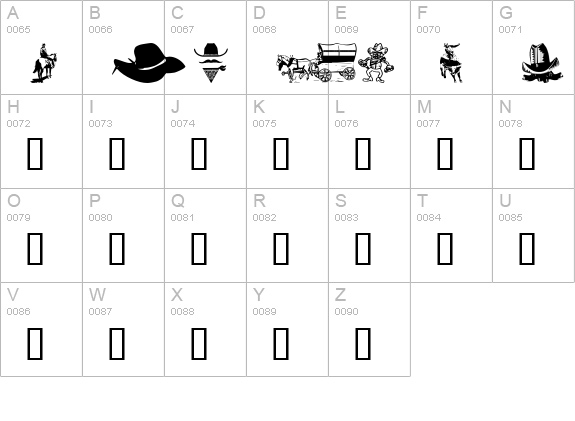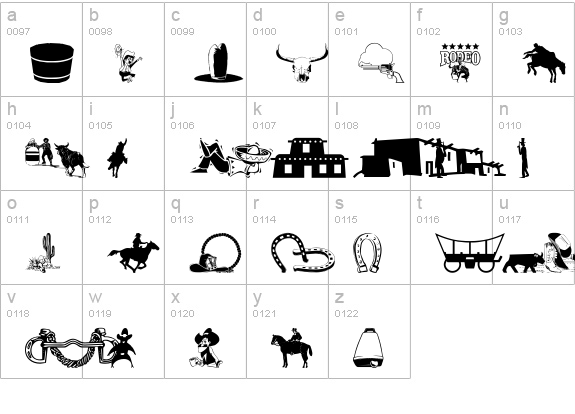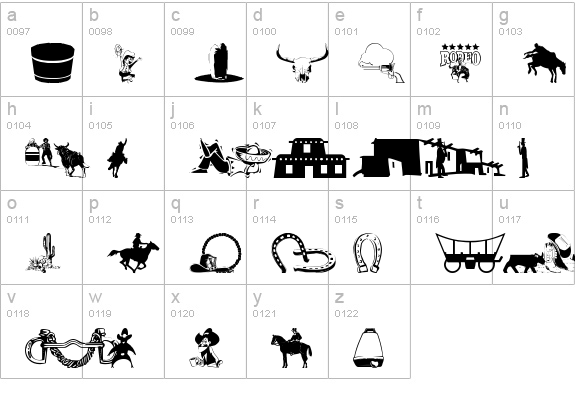
wmwestern1 Font Details
The wmwestern1 font is a charming and versatile typeface that exudes a sense of nostalgia and western flair. With its bold and rugged appearance, this font is perfect for conveying a sense of adventure and ruggedness in your design projects. The wmwestern1 font is available for free download at FontsMarket.com, making it easily accessible for all your creative needs. Whether you're working on a poster, logo, or branding project, this font will add a unique and eye-catching touch to your designs. Embrace the wild west spirit with the wmwestern1 font and watch your designs come to life with its bold and distinctive character.